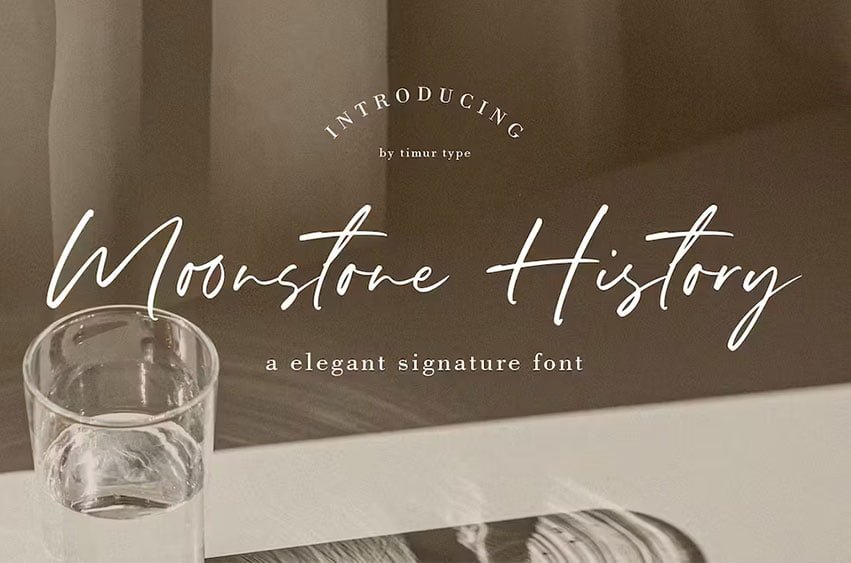
Moonstone History Font is a Handwritten Script Font, which was created with great care and specially created for you.
Moonstone History is perfect for product packaging, branding project, magazine, social media, weddings, or just used to express words above the background.